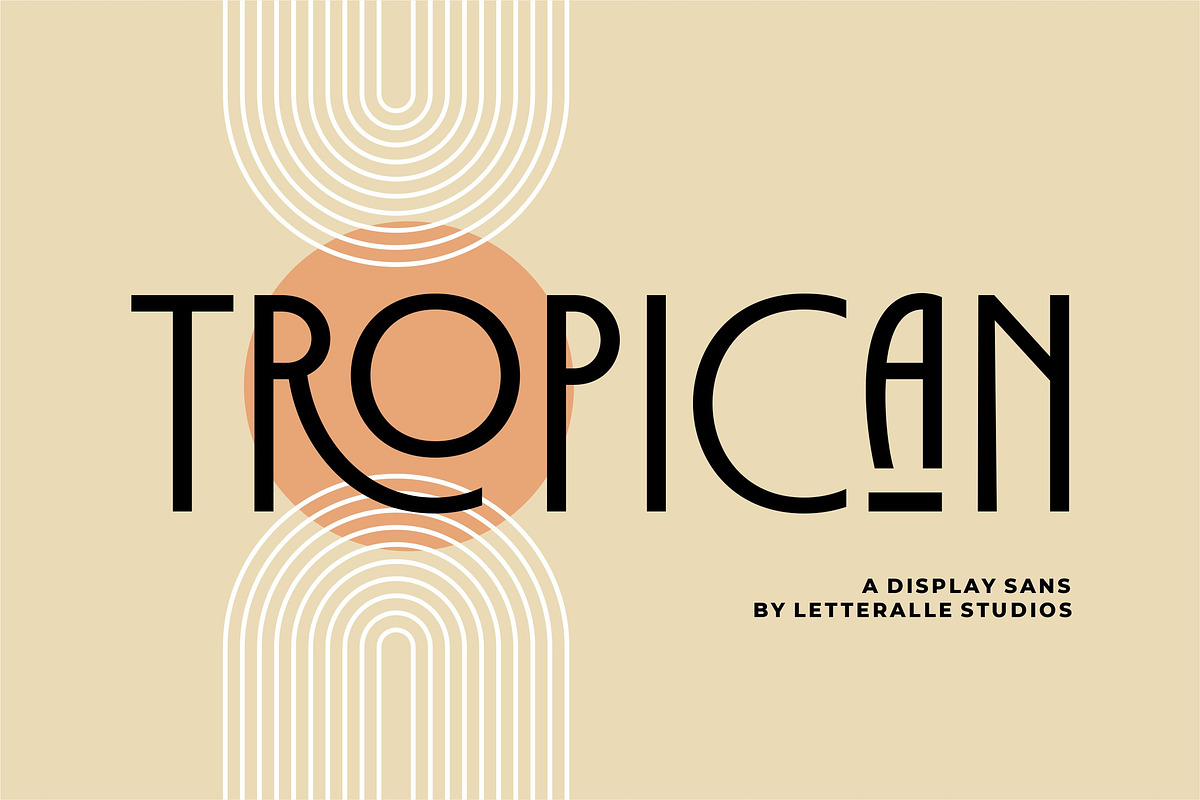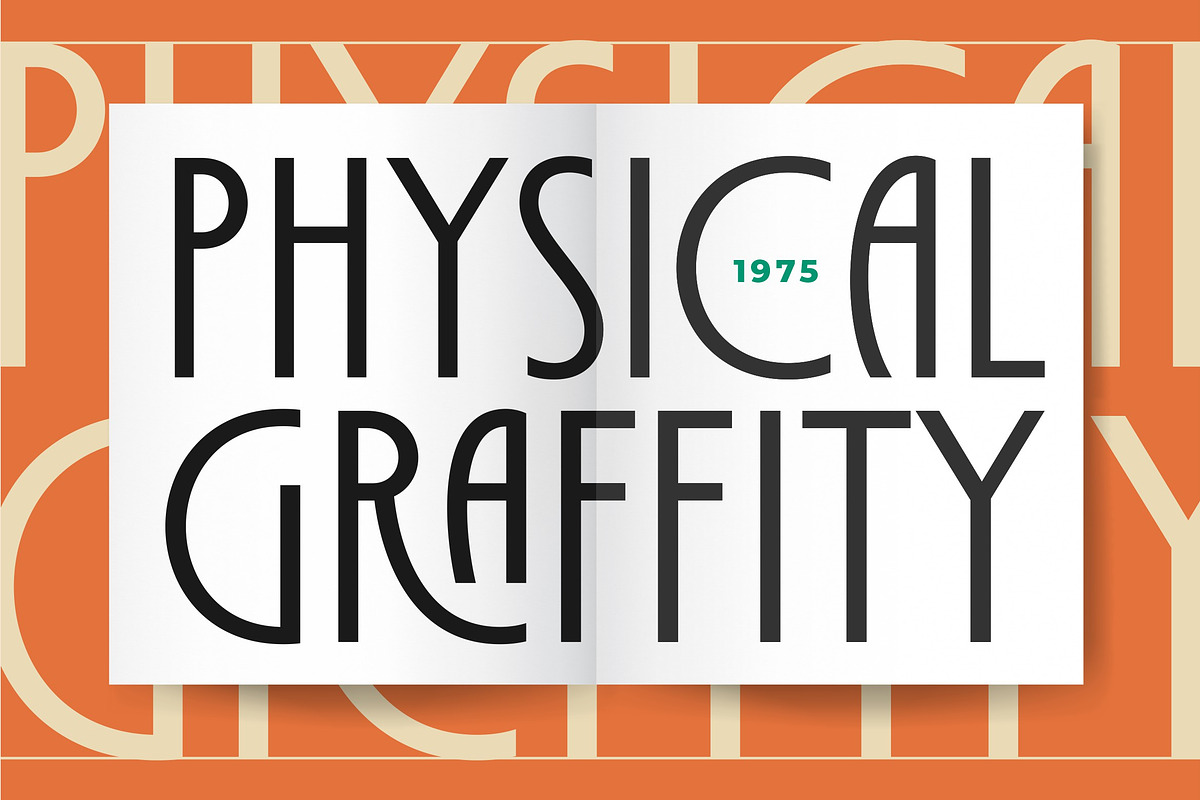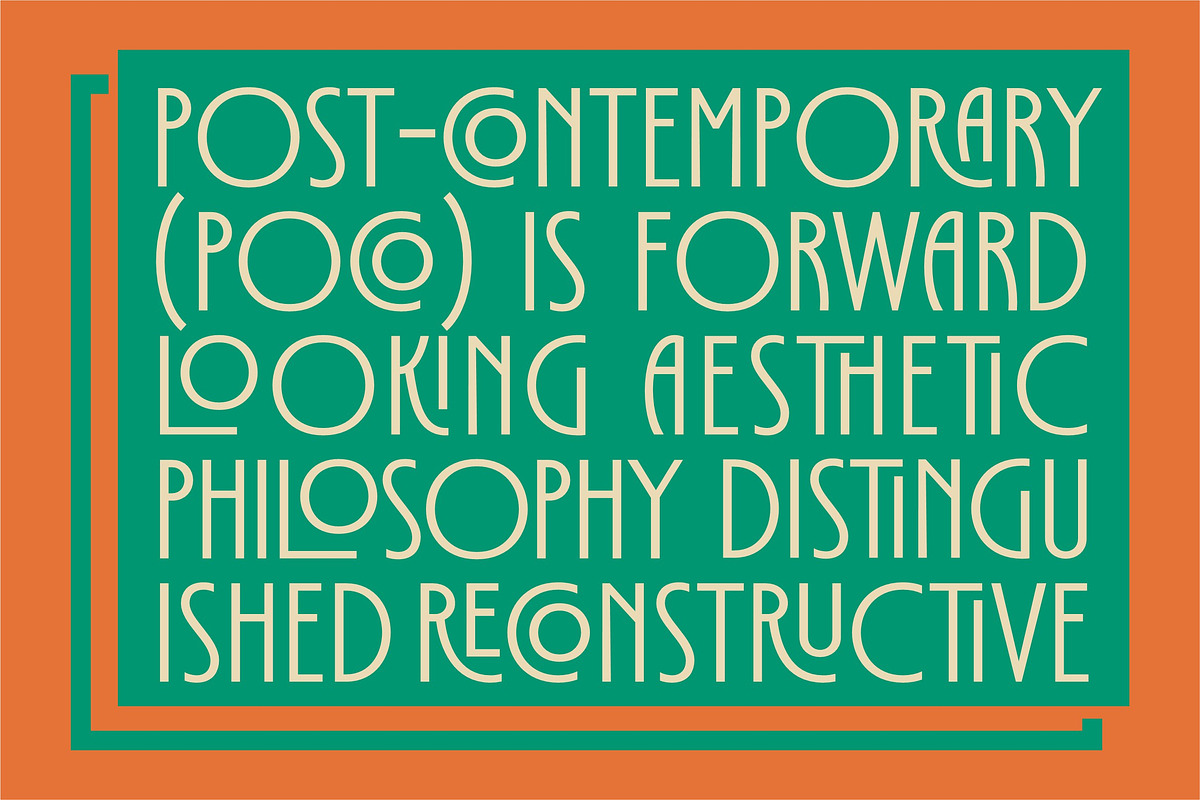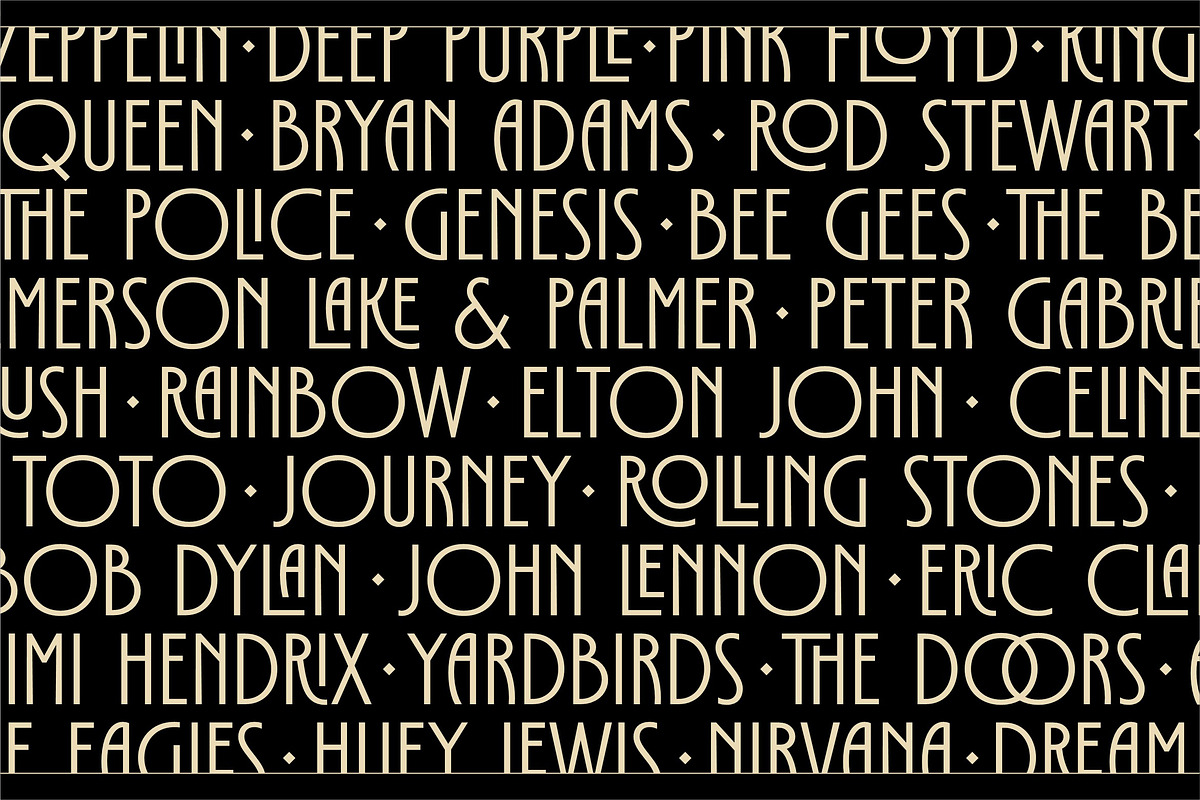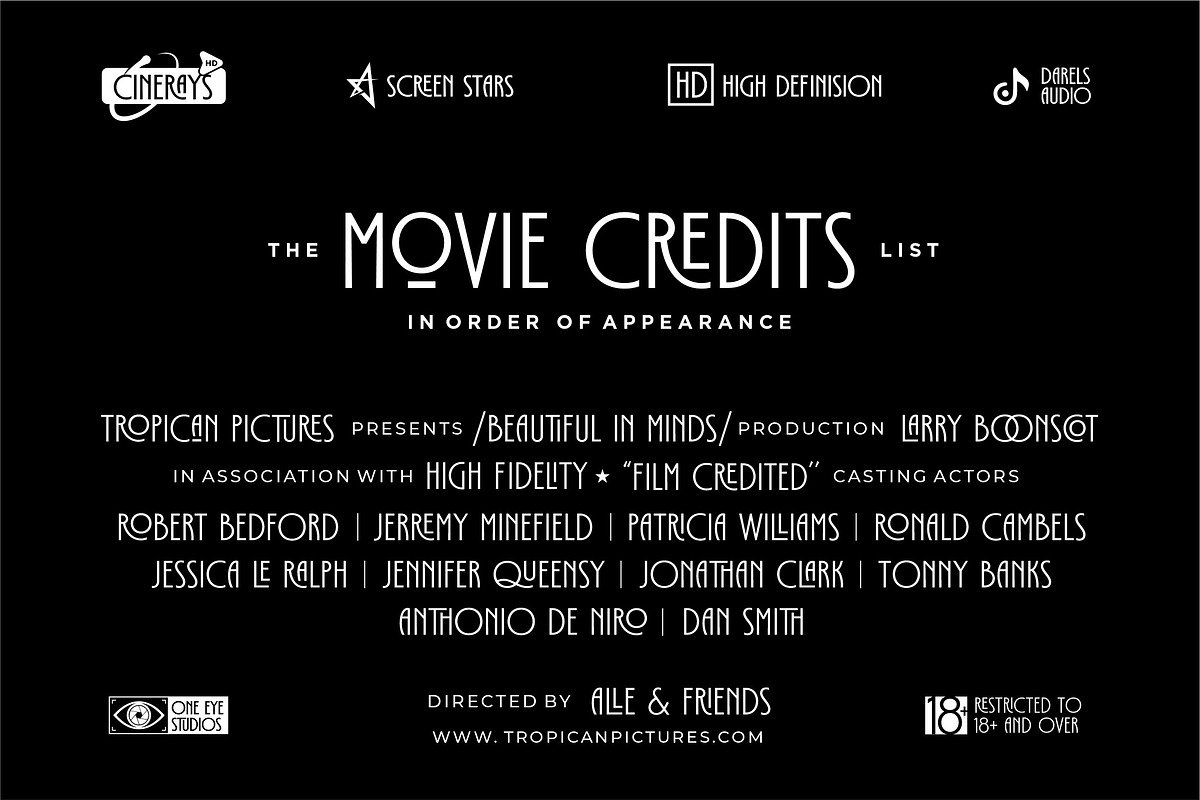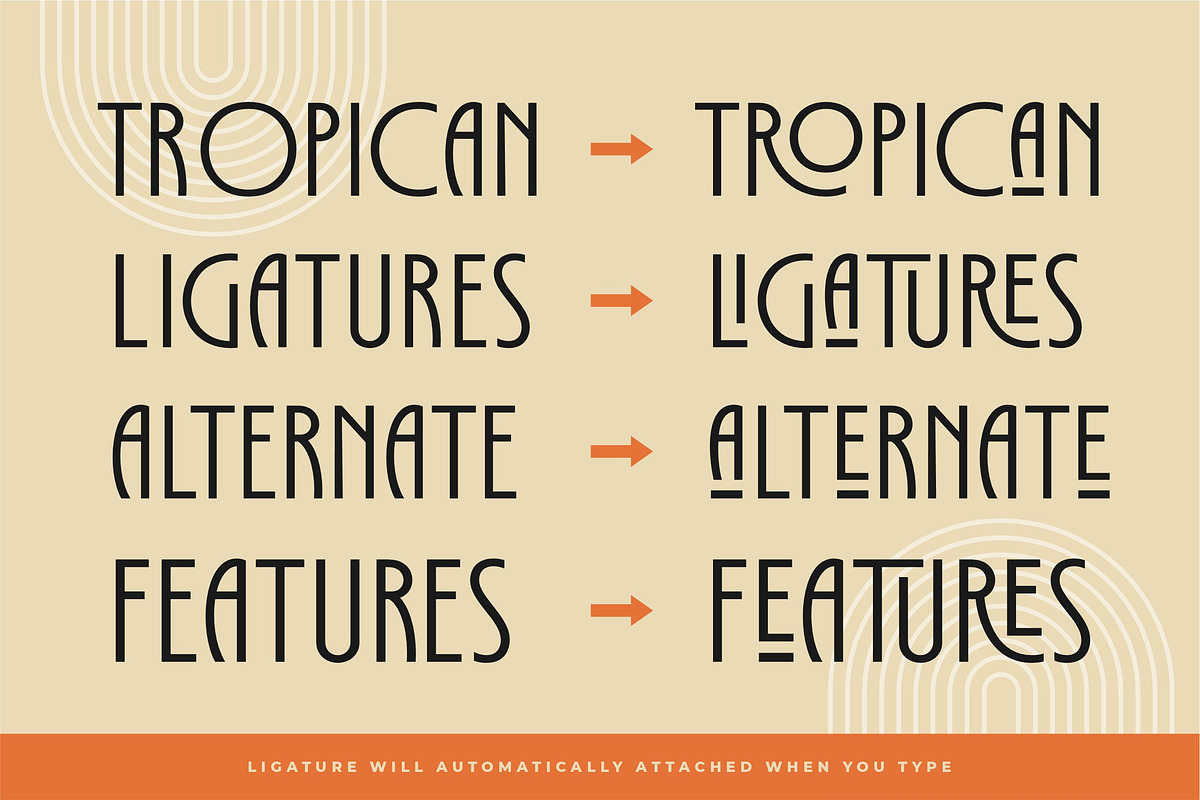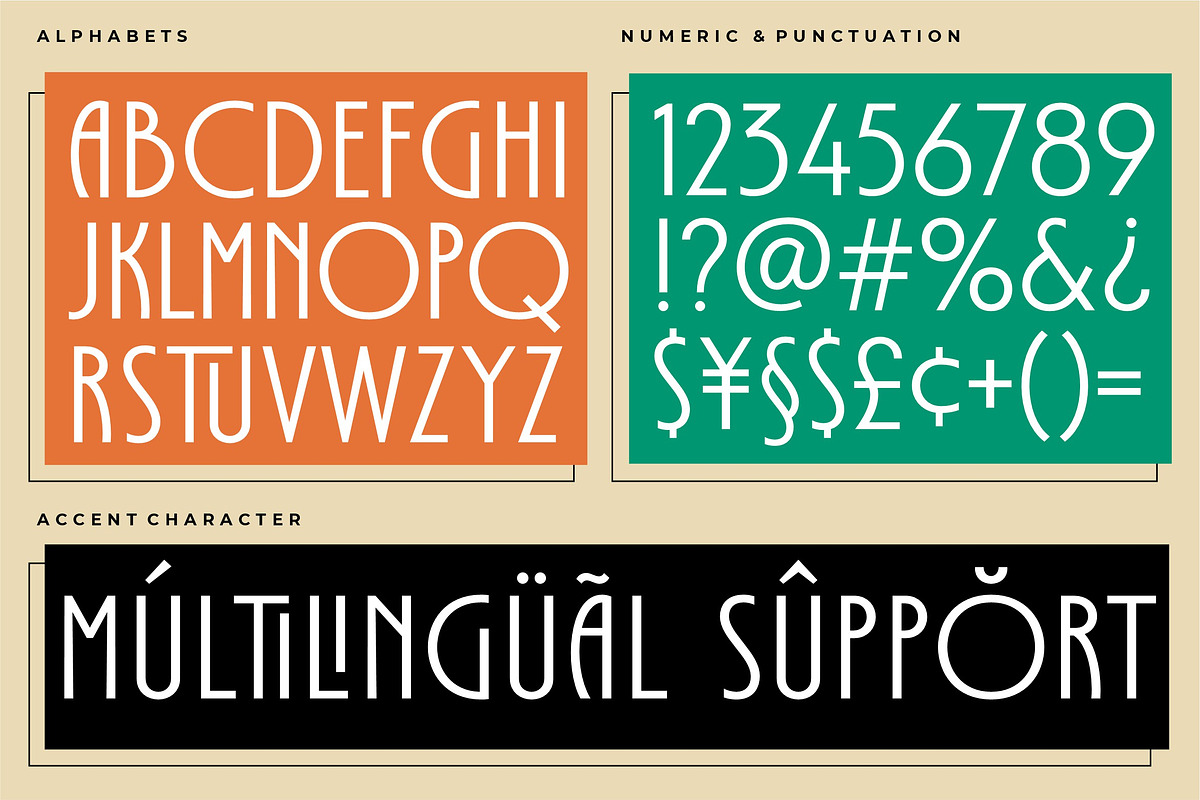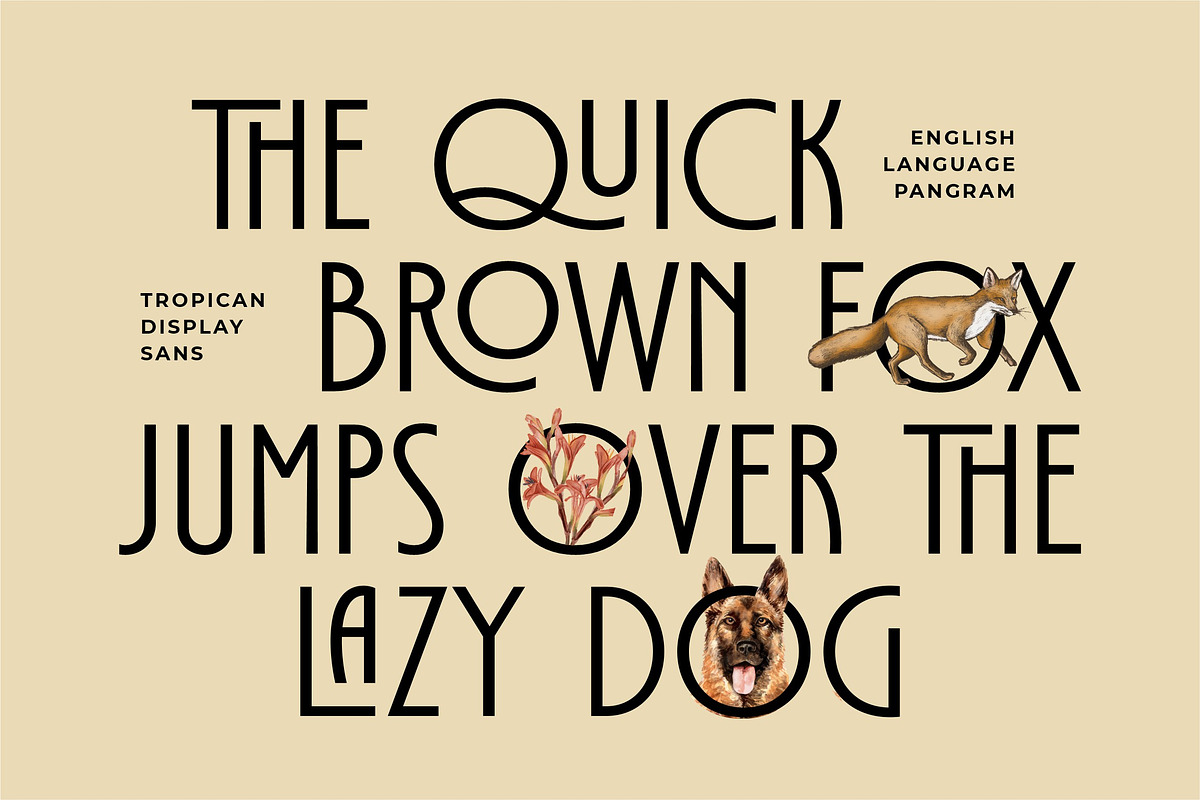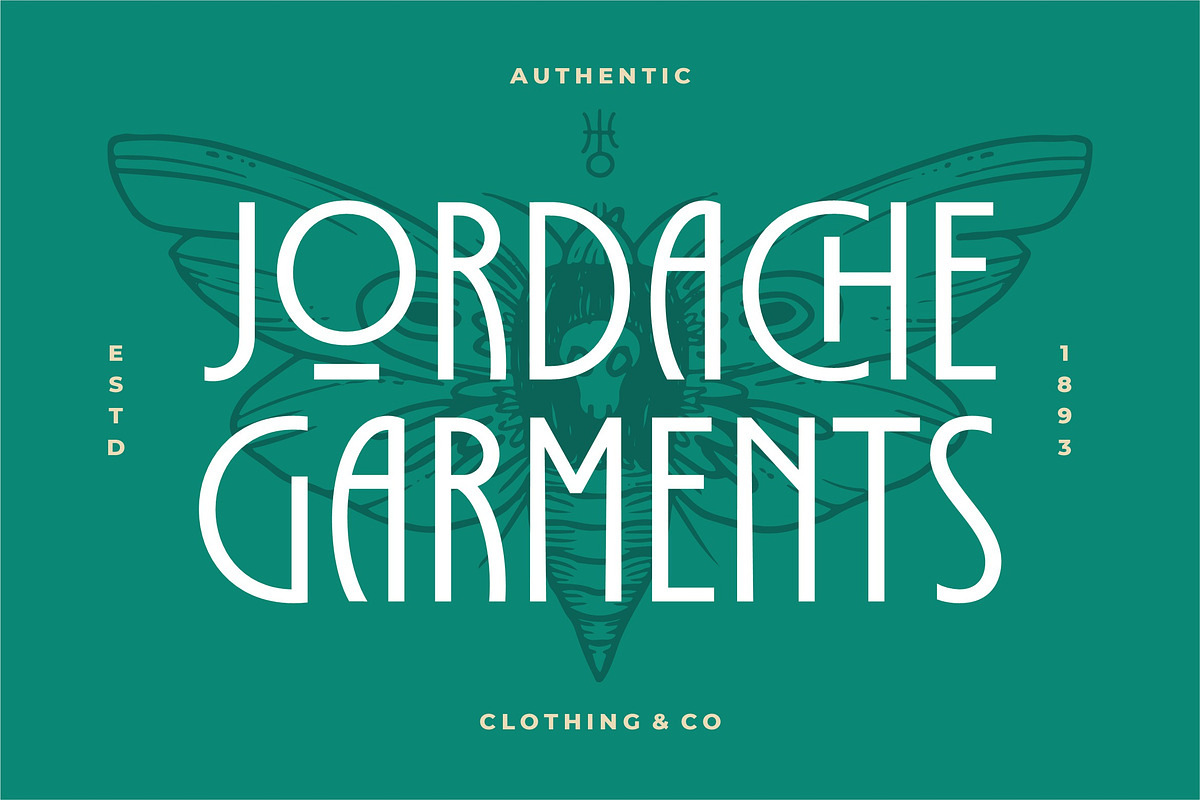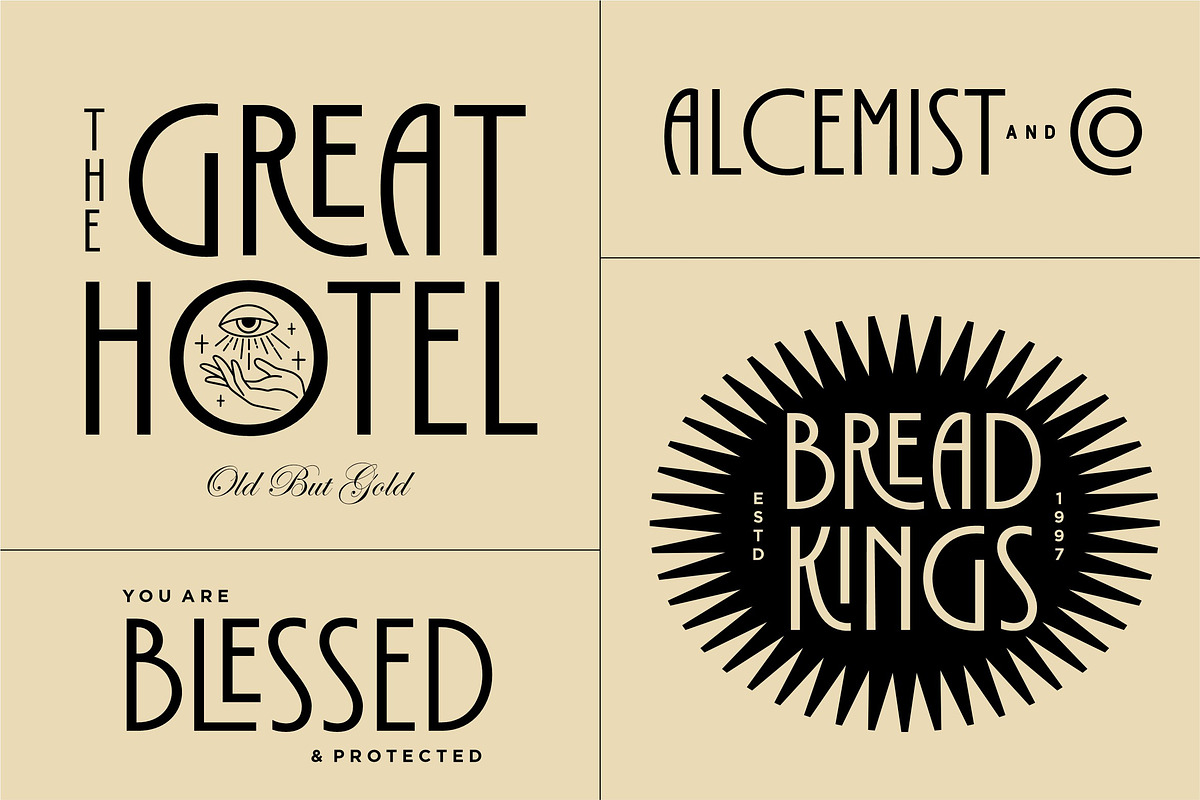
Tropican Display Sans
Tropican is an uppercase sans serif font with a vintage and minimal style. Tropican brings many ligatures that will make this font even more interesting and different.
Tropican is a versatile font, perfect for display, editorial projects, Logo design, Wedding, Clothing Branding, product packaging, magazine headers, or simply as a stylish text overlay to any background image.
- Ligatures.
- Numeral, Punctuation, Multilingual Accents.